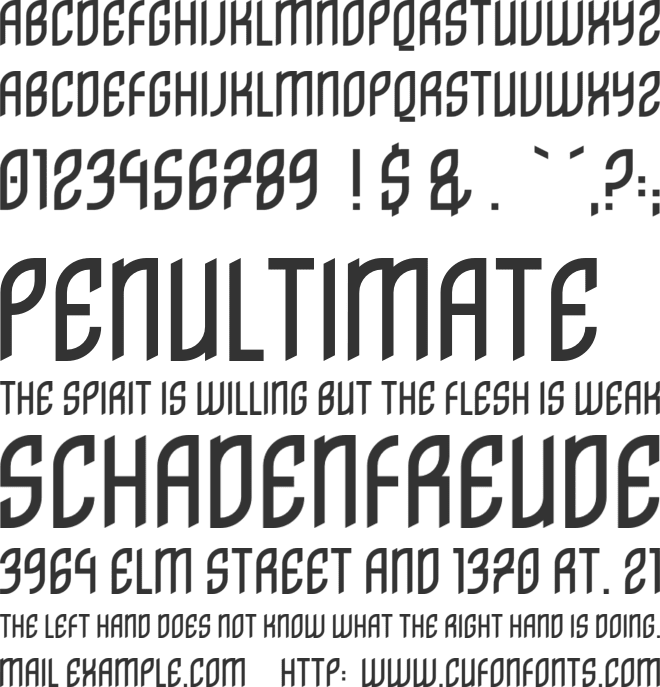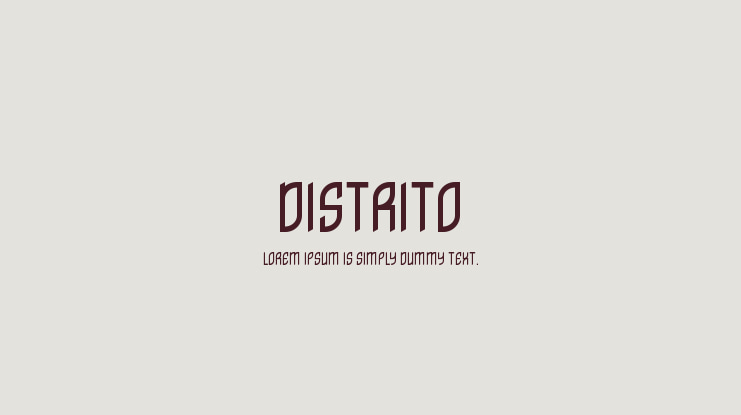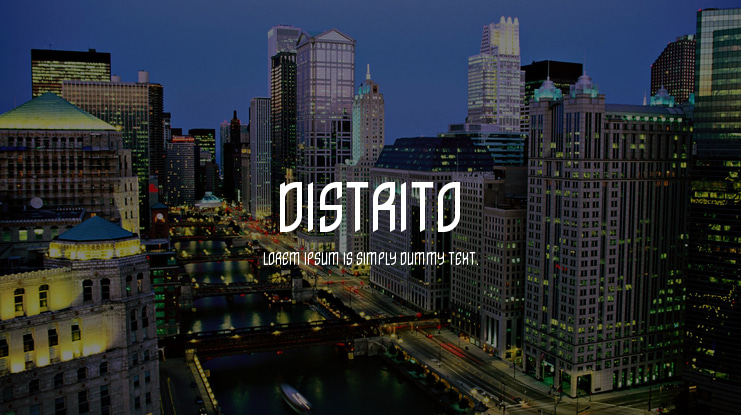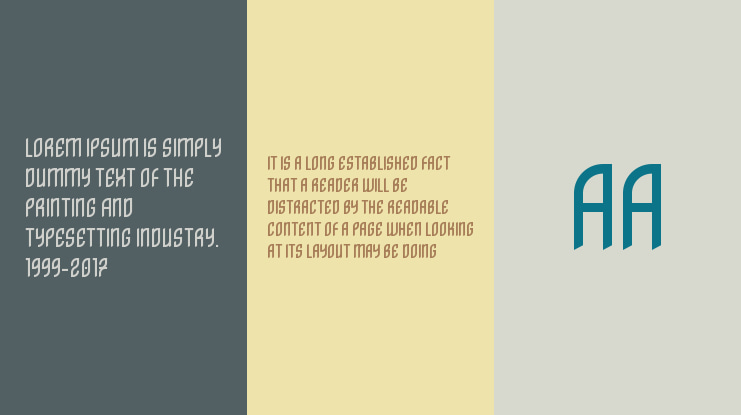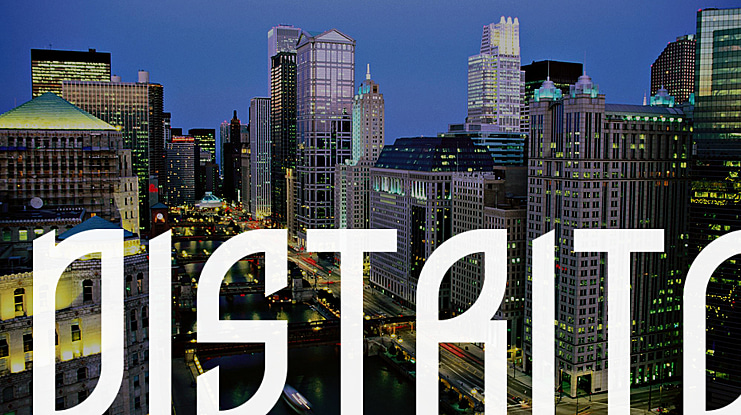
Distrito Font
Note of the author Geometric modular font inspired in the historical center of Bogotá, Colombia. http://www.domestika.org/es/projects/195391-distrito Thanks Dafont for sharing!